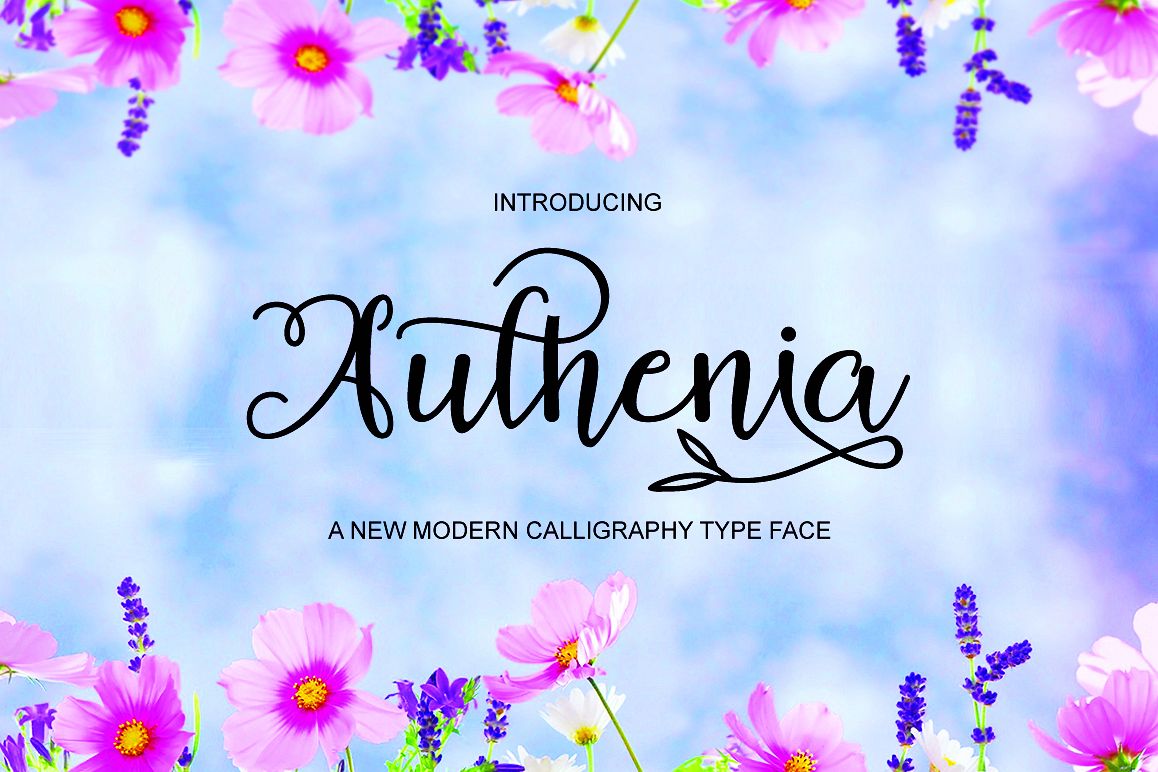
Authenia
AutheniaScript-Regular
Introducing !
Authenia Script is a modern script with handwriting, decorative characters, and dancing baselines! very suitable in use Like blog header, branding, t-shirt, wedding, social media, product design, stationery, advertising, clothing, book cover, business cards, greeting cards, branding, merchandise, invitations and handmade quotes and more.